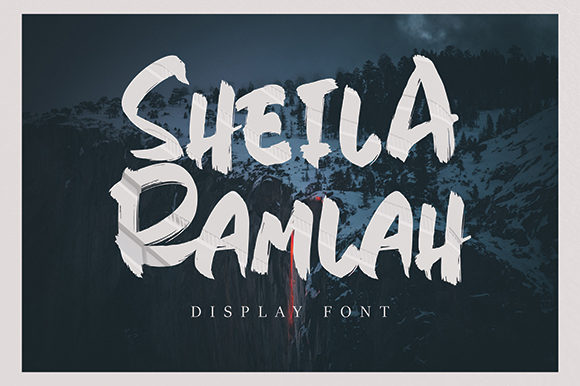
Dive into the world of Sheila Ramlah, a display font that exudes boldness and playfulness, ready to transform your creative visions into captivating realities. This chunky lettered font is not just a collection of characters; it's an invitation to embark on a journey of self-expression and artistic exploration. Embrace the power of Sheila Ramlah and witness the remarkable transformation of your designs, leaving an indelible mark on the world of typography.
With Sheila Ramlah, you hold the key to unlocking a realm of possibilities. Its daring strokes and playful curves add an irresistible charm to any project, whether it's a tattoo script, a striking poster, or an eye-catching social media graphic. Unleash your inner artist and let the boldness of Sheila Ramlah elevate your designs to unprecedented heights, capturing the essence of your creative spirit.
Imagine the impact of Sheila Ramlah on your tattoo designs. Its bold strokes create a captivating visual narrative, transforming your skin into a canvas of artistic expression. Each letter becomes a statement, a symbol of your individuality, rendered with precision and flair. Let Sheila Ramlah's chunky letters tell your story, leaving an indelible mark that speaks volumes about your unique personality.
Beyond tattoos, Sheila Ramlah shines as a versatile display font, adding a touch of whimsy and charisma to your posters, flyers, and social media graphics. Its playful curves and bold presence command attention, inviting viewers to engage with your messages. Create posters that demand to be noticed, flyers that ignite curiosity, and social media posts that spark conversations. With Sheila Ramlah, your designs will resonate with audiences, leaving a lasting impression that lingers long after the initial encounter.
Step into the world of Sheila Ramlah and prepare to be captivated by its bold personality and unwavering charm. This display font is more than just a collection of letters; it's an instrument of creativity, a catalyst for self-expression, and an essential tool for designers seeking to make a statement. Embrace the power of Sheila Ramlah and embark on a creative journey that knows no bounds. Unleash your imagination, let your ideas flow freely, and watch as Sheila Ramlah transforms your designs into masterpieces that leave an indelible mark on the world of typography.